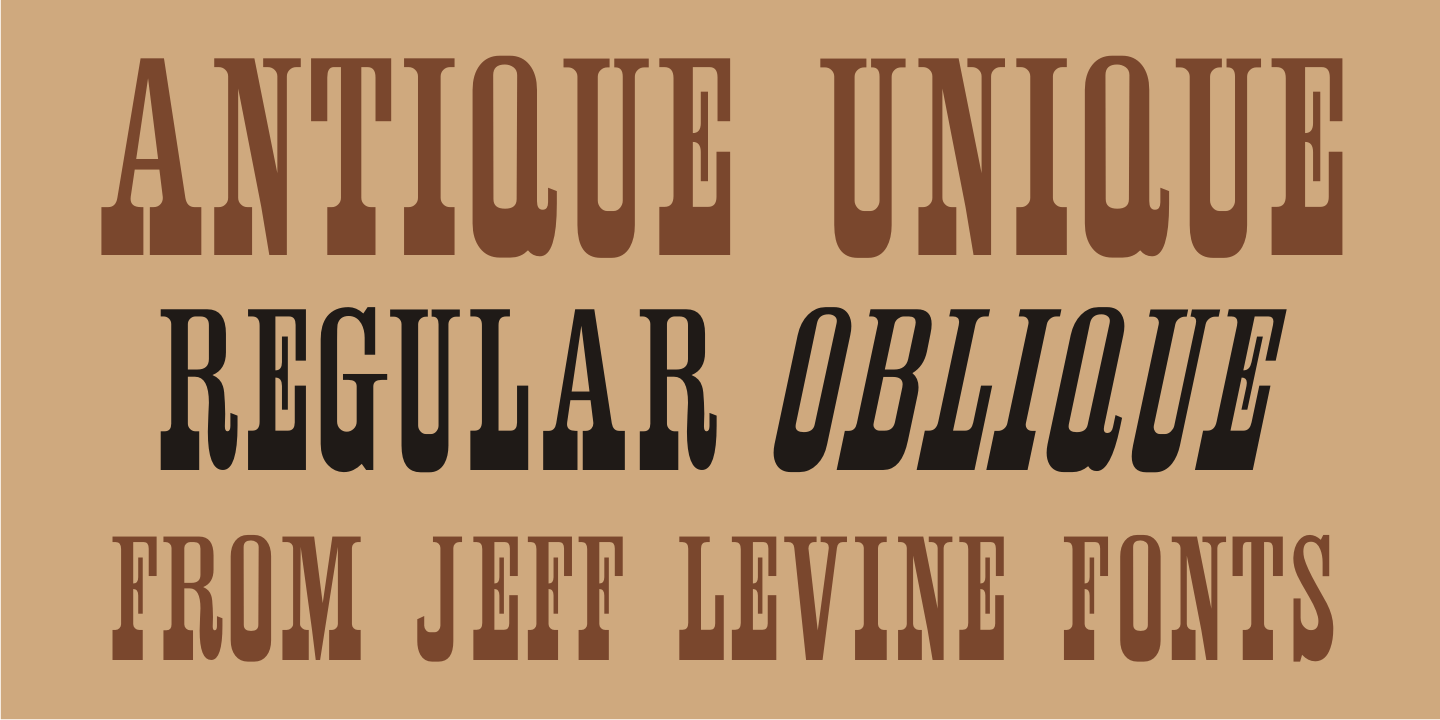
Antique Unique
A page from an 1880s type specimen book presented a unique 'Barnum”-like design with top horizontal lines much thinner than the bottom ones.
Titled 'Ten Line Antique Compressed No. 7”, the design transcends the years; for it's not only an antique wood type font, but is also reminiscent of the 1960s hippie counterculture movement.
Antique Unique JNL is available in both regular and oblique versions.